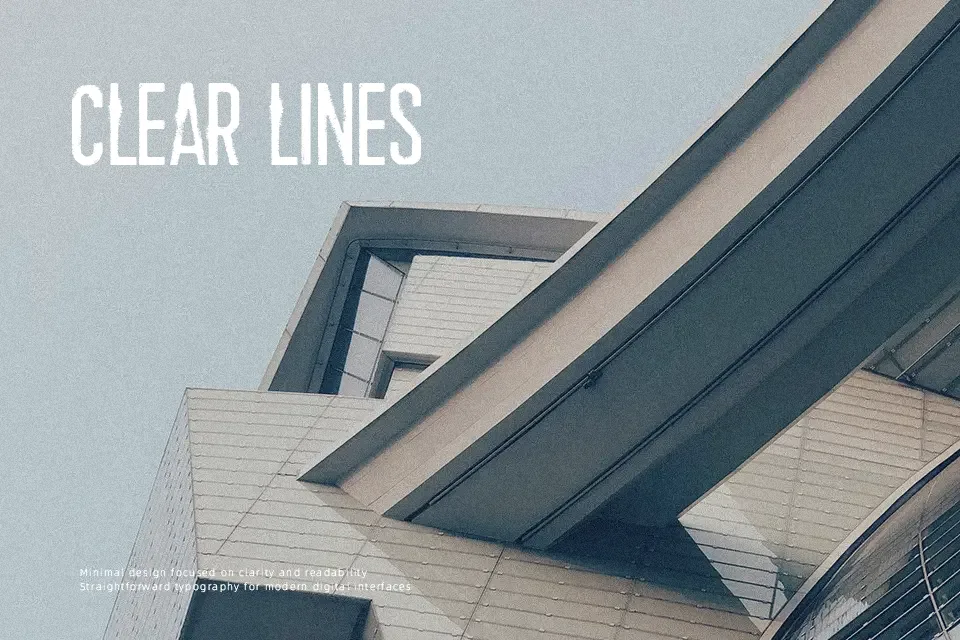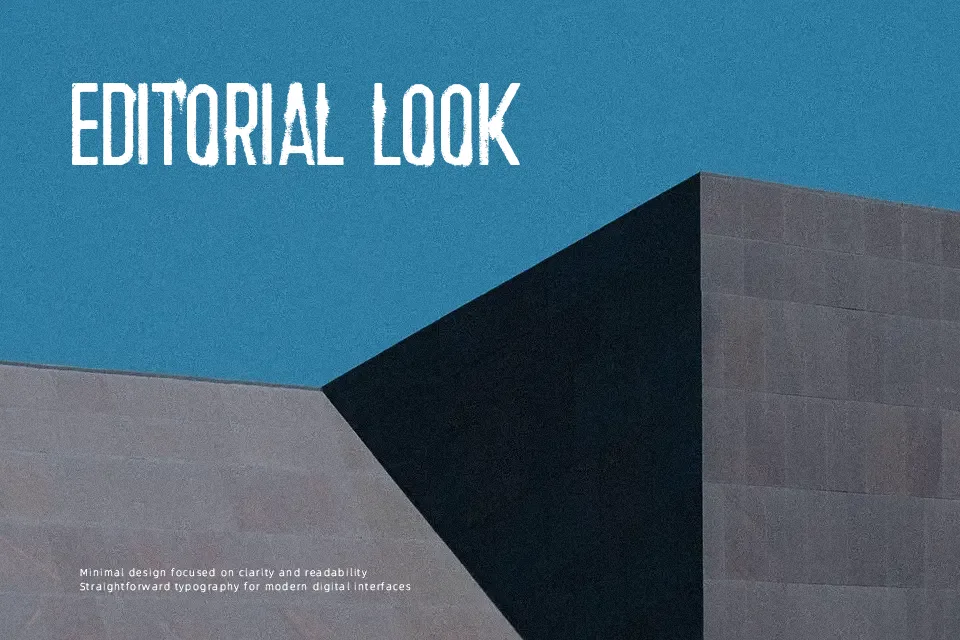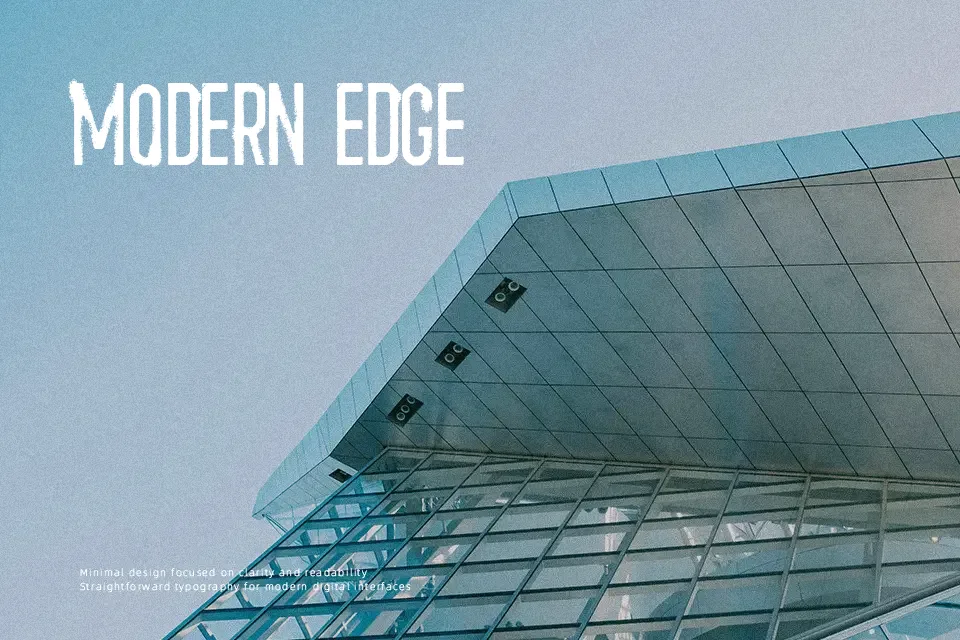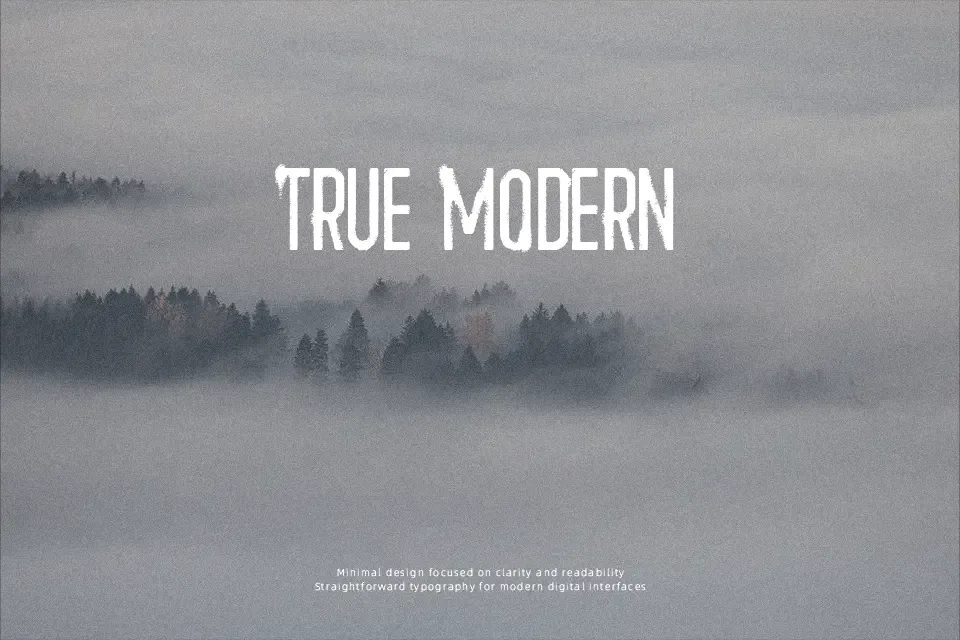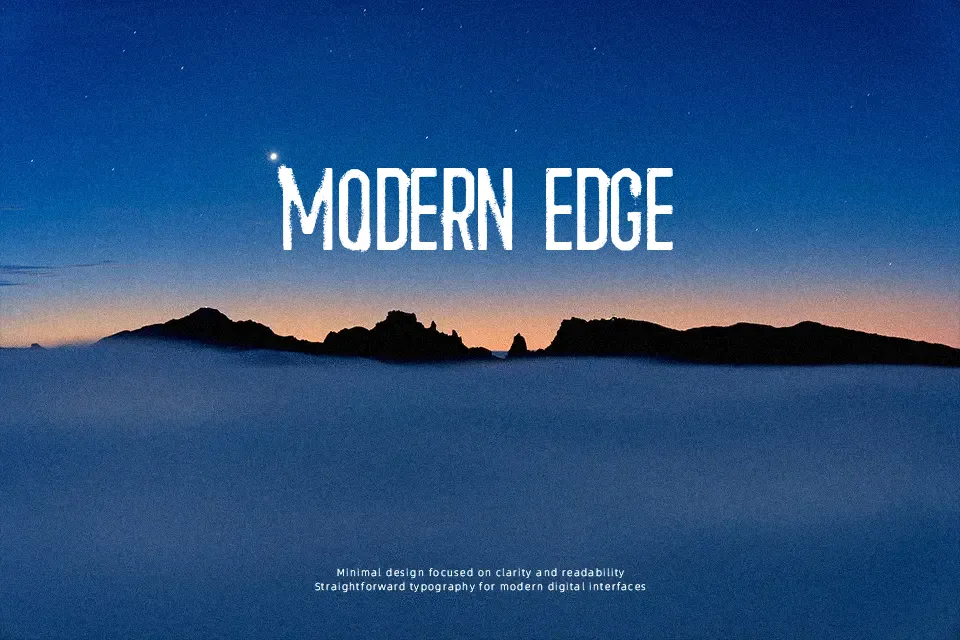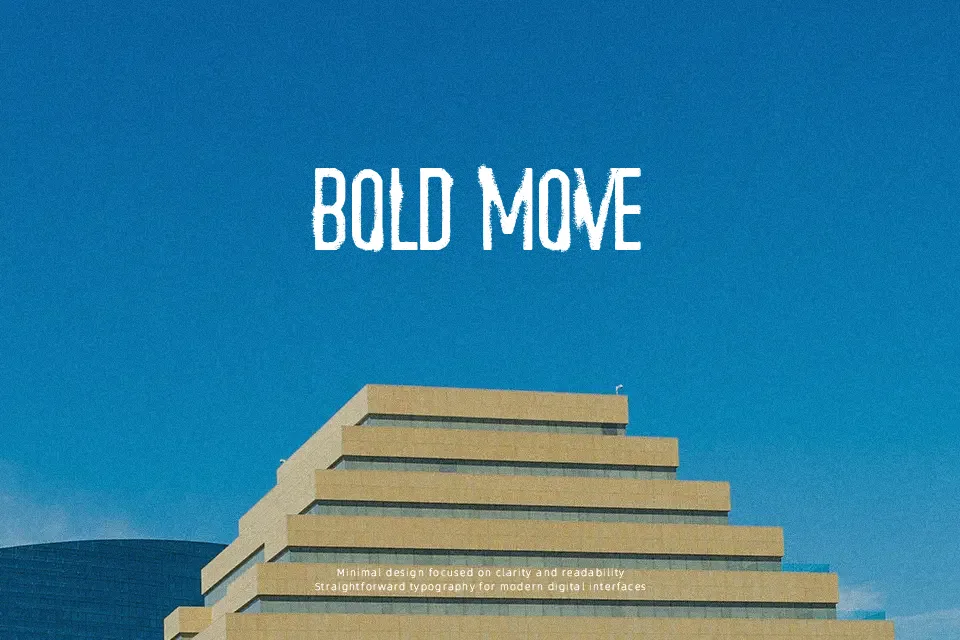
Train to Nevada Font
Train to Nevada Font showcases a rugged display structure built with heavily distressed strokes, compact letter widths, and prominent vertical proportions. The letterforms exhibit irregular surface wear and uneven contours that produce a gritty, weathered texture across every glyph. Character spacing remains fairly uniform, though the dense ornamentation and narrow architecture naturally restrict legibility at modest point sizes. While the typeface delivers commanding visual impact across oversized event signage, album artwork, and thematic merchandise, the fractured strokes compromise comfort in continuous reading environments. For optimal results, this design functions best when reserved for brief, punchy headlines rather than dense paragraphs.
Best For: vintage apparel graphics, grunge music album covers, western film title cards, craft brewery packaging
Not Ideal For: continuous body text, corporate annual reports, small mobile interface labels, dense technical documentation
Perfect for headline, logo, and packaging, with a grunge and condensed style.